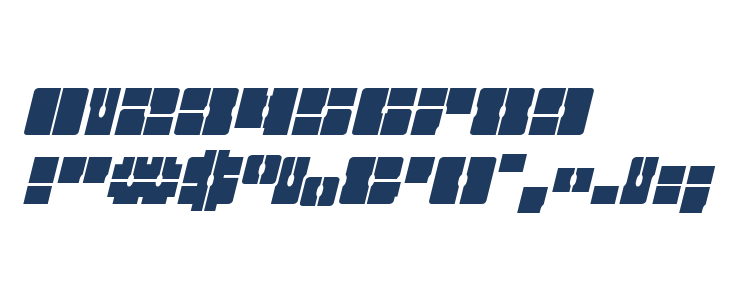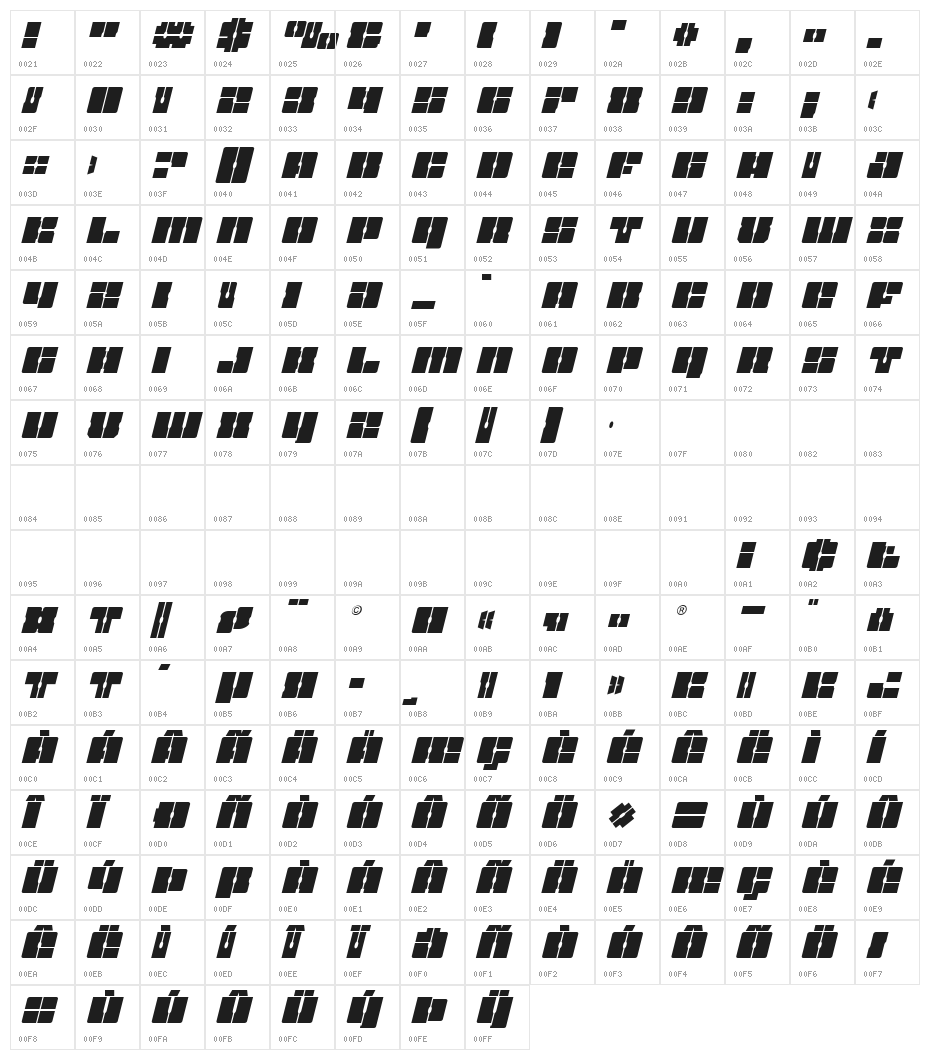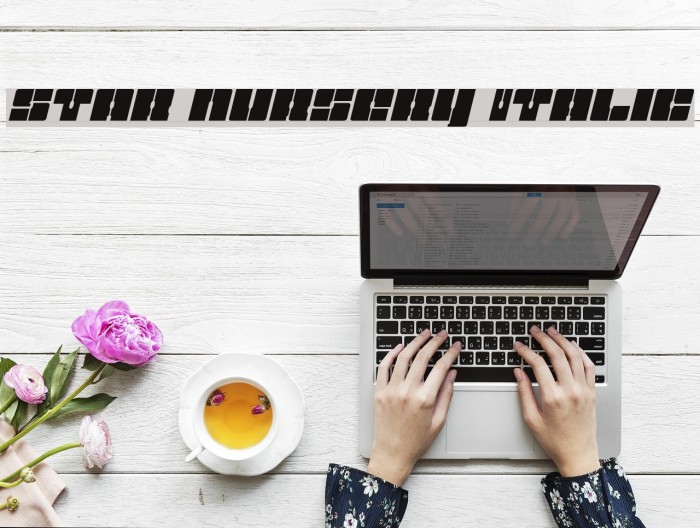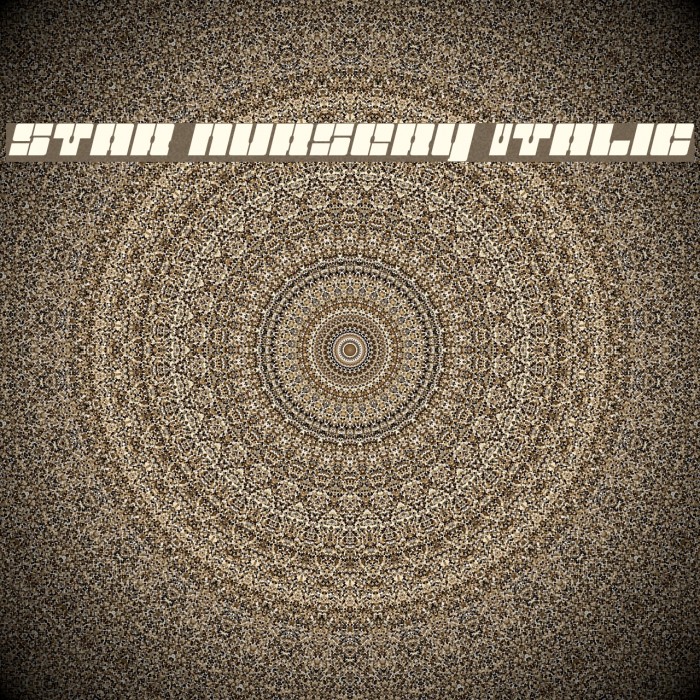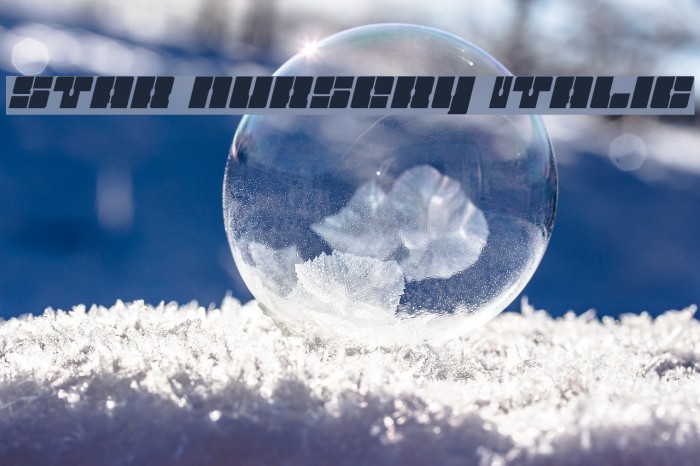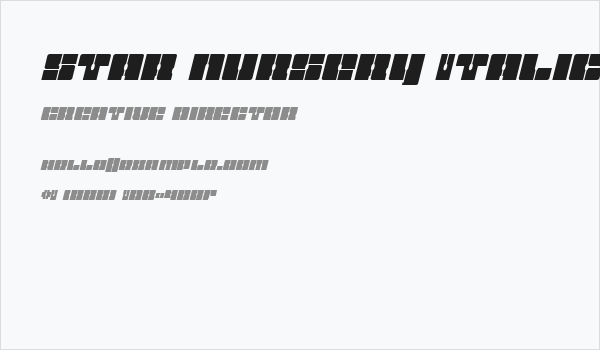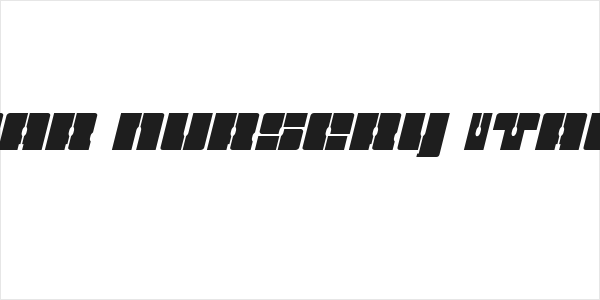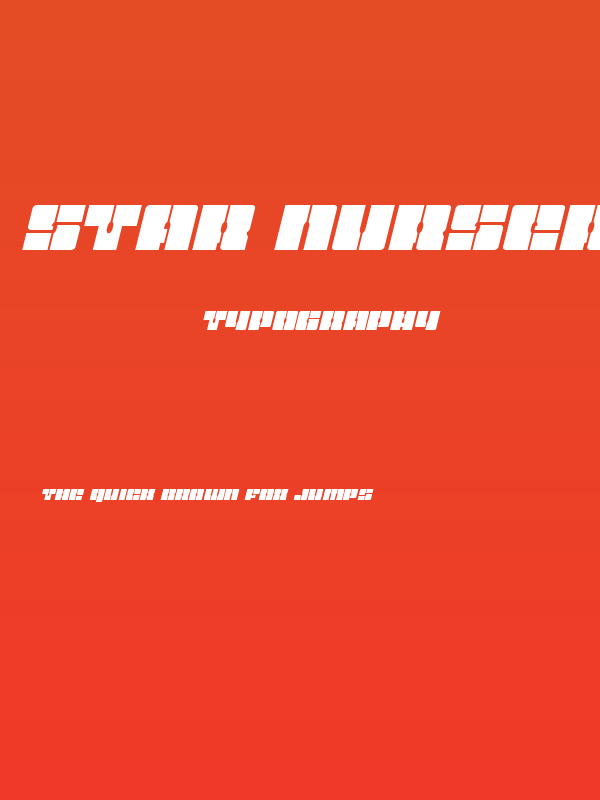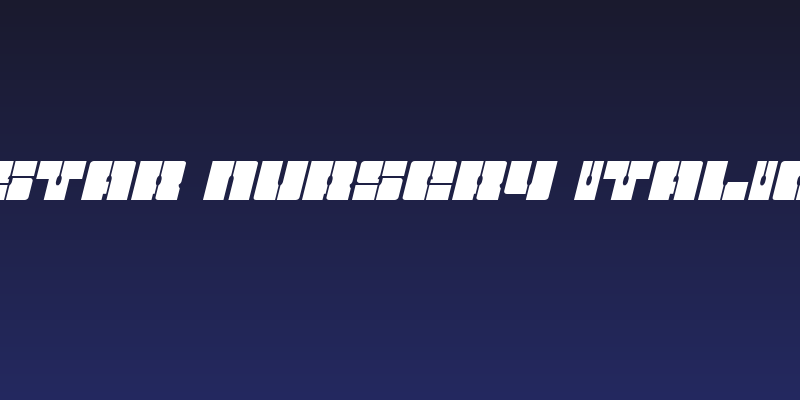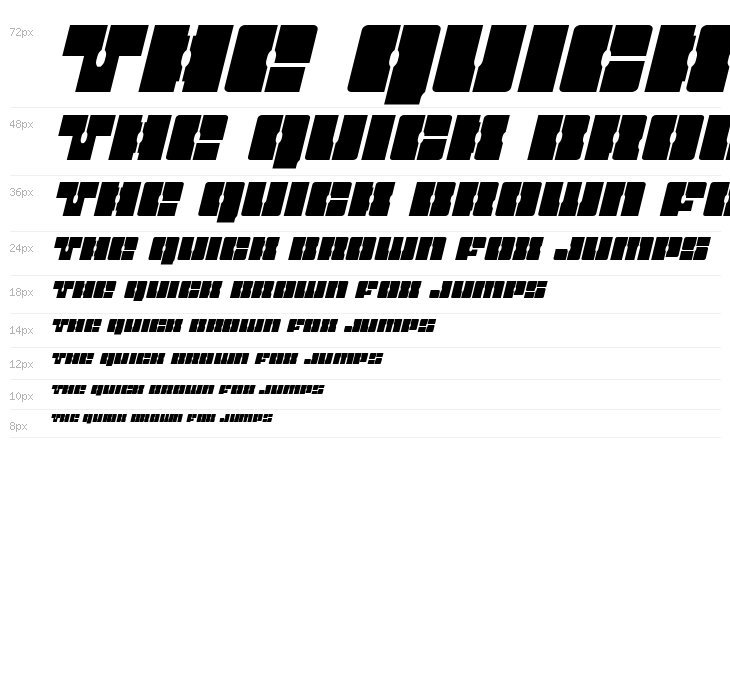
Star Nursery Italic Font
Star Nursery Italic Description
This font features a bold and geometric design with a futuristic flair. Each character is constructed with thick, block-like shapes that create a strong visual impact. The angular edges and uniform stroke width contribute to its modern and industrial aesthetic. The font maintains a consistent height across all characters, enhancing its cohesive appearance. Its distinct style is suitable for projects that require a bold statement, such as branding or advertising. The italic slant adds a dynamic touch, making it ideal for attention-grabbing headlines or logos.
| Proposed Projects | Ideal for branding, advertising, headlines, and logos that require a strong, modern look. |